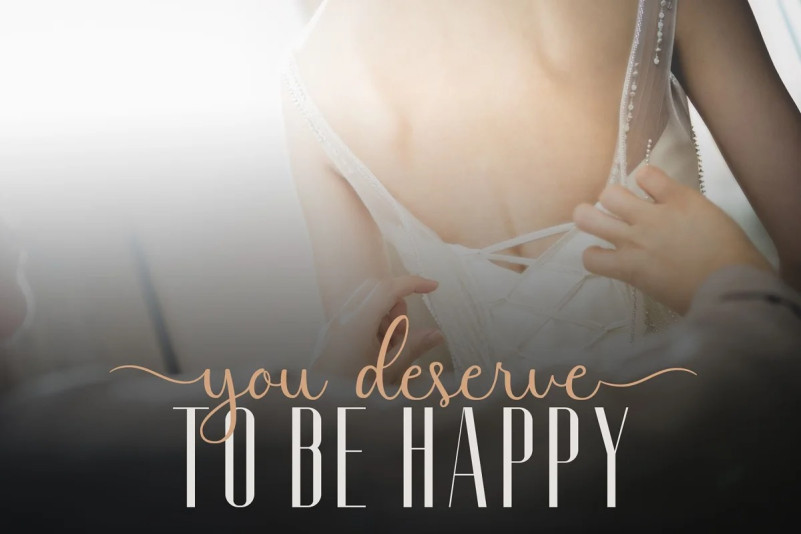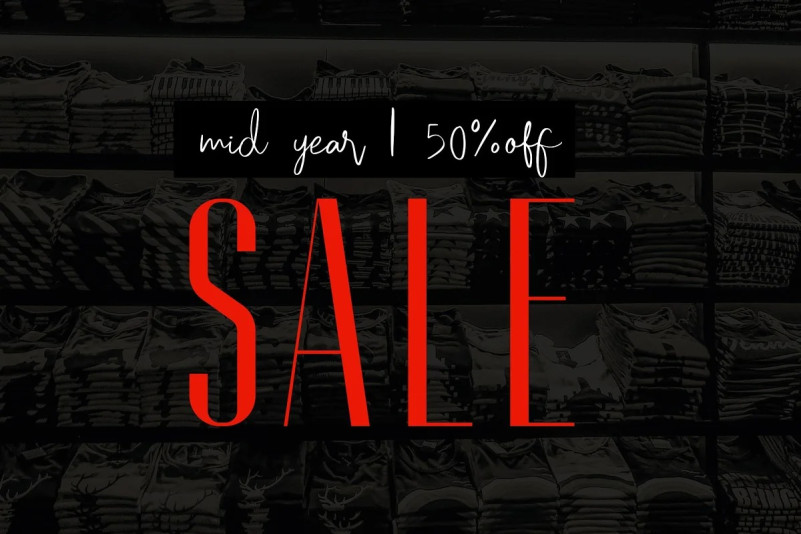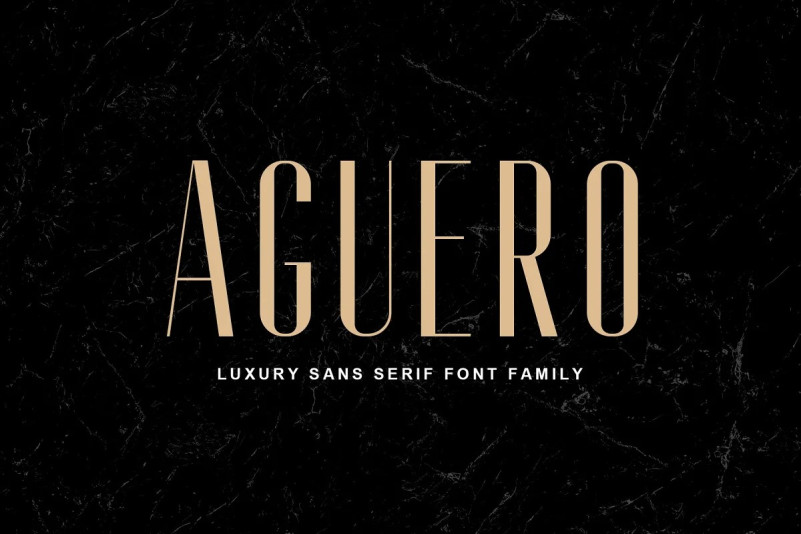
Aguero Font
Aguero Font – Font Family is a modern serif font family whose design refers us to the style of modern sans serif. The distinctive features of Aguero Sans – Font Family are the relatively low contrast of strokes, the slightly squarish shapes of round characters and the emphasized business like simplicity.
Aguero Sans – Font Family features an original stylistic set which, when turned on, adds features of typical pointed-pen sans serif to some of the lowercase characters. In addition, Aguero Sans – Font Family has small capitals for Latin and as well as several interesting ligatures.
Aguero Sans – Font Family has been crafted from scratch with a structural logic of its own: a fusion of pure geometry and optical balance. By combining a variety of styles Aguero Sans – Font Family is suitable for Logo, greeting cards, quotes, posters, branding, name card, stationary, design title, blog header, art quote, typography
Aguero Sans – Font Family also suitable for art, modern envelope lettering or book design, happening style like handdrawn design or watercolor design theme, craft design, any DIY project, book title, wedding font, pop vintage design, or any purpose to make our art/design project look pretty and trendy.